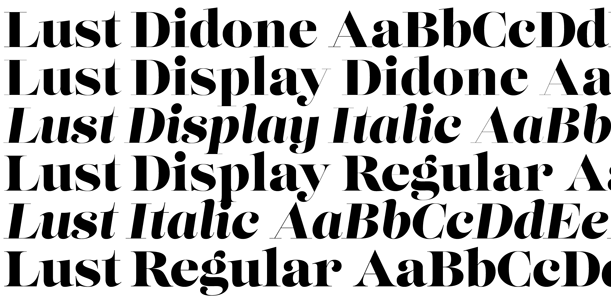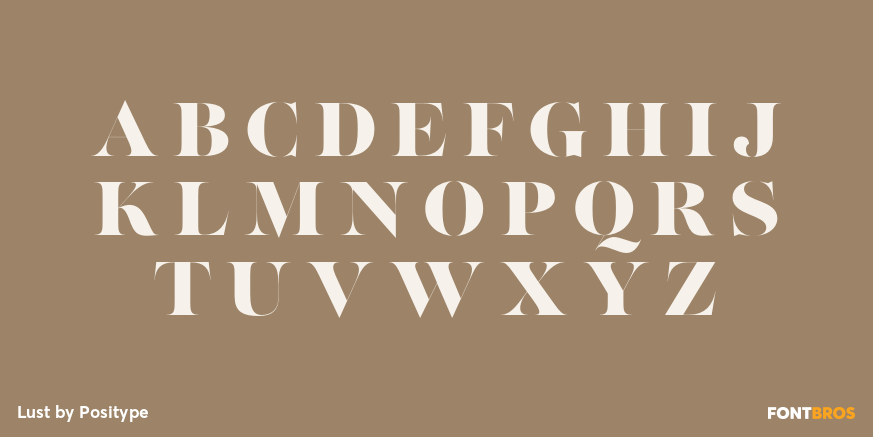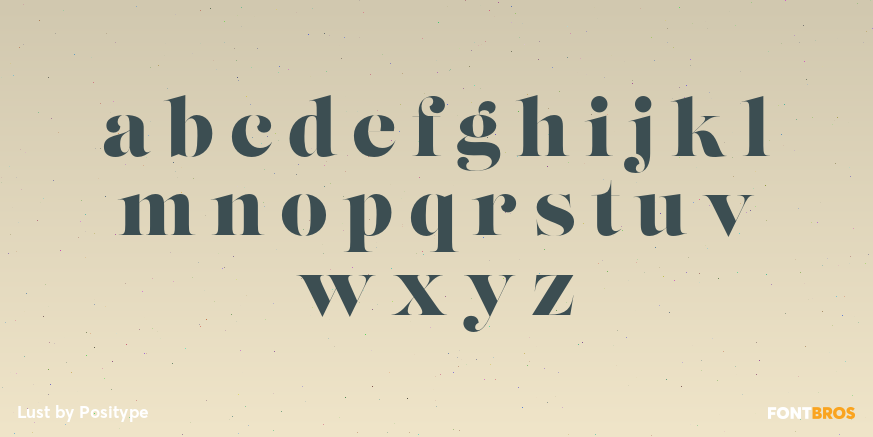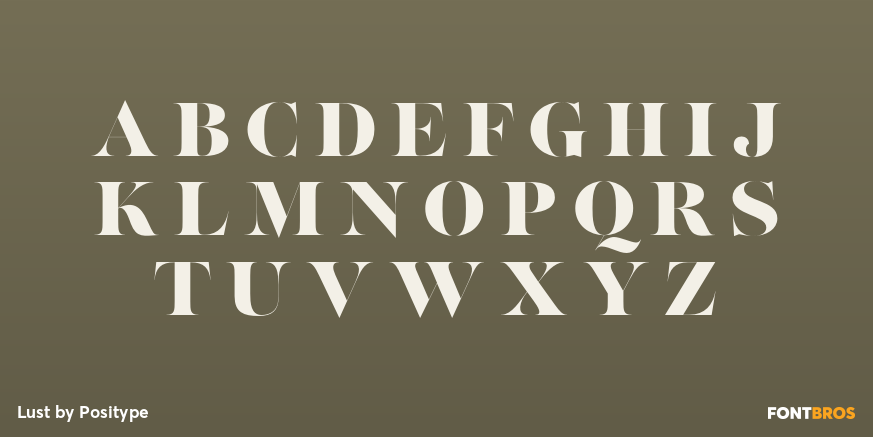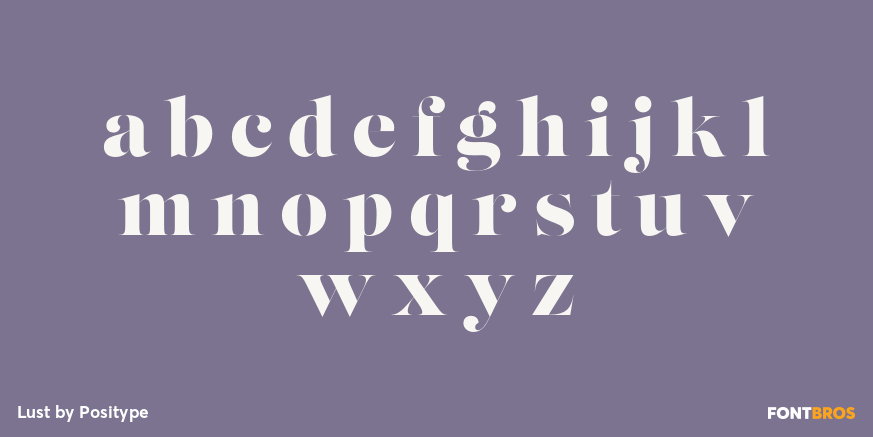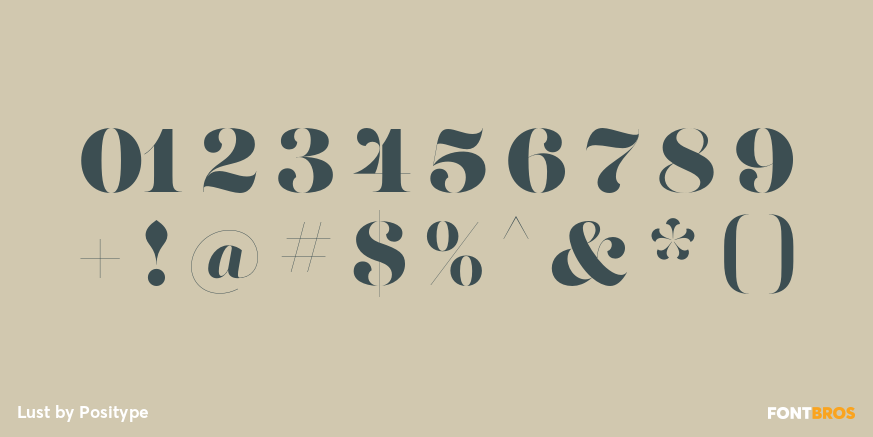
Lust
Font Family by Positype
The result yielded a rather diverse typographic gene pool: a little Scotch Modern, a little Didone and Didot, a dominant dose of Caslon, and a pinch of Baskerville - all wrapped up in the leggy body of a Brazilian supermodel. A confident, self-reliant typeface that shows just enough to keep everyone staring and leave them wanting more. With this design done, I moved to make it even more desirable and created the display variants with double the contrast!
WARNING! Please know what you are getting into with this typeface. Like a supermodel, it can't be squeezed into every situation. It needs room and size to breathe. The regular weights can support 36-point or higher settings, whereas the display weights shine above 72-point (preferably 100-point).
Lust is packed with alternates to play with - enough to turn you on and satisfy. Utilizing the OpenType features (and Glyph palette) wisely will have you weaving through endless variations of Stylistic, Contextual, Titling, Historical and Swash alternates - and the Italic styles feature a Contextual system that allows you to switch seamlessly between Didone and Scotch traits in order to better complement the upright variants.